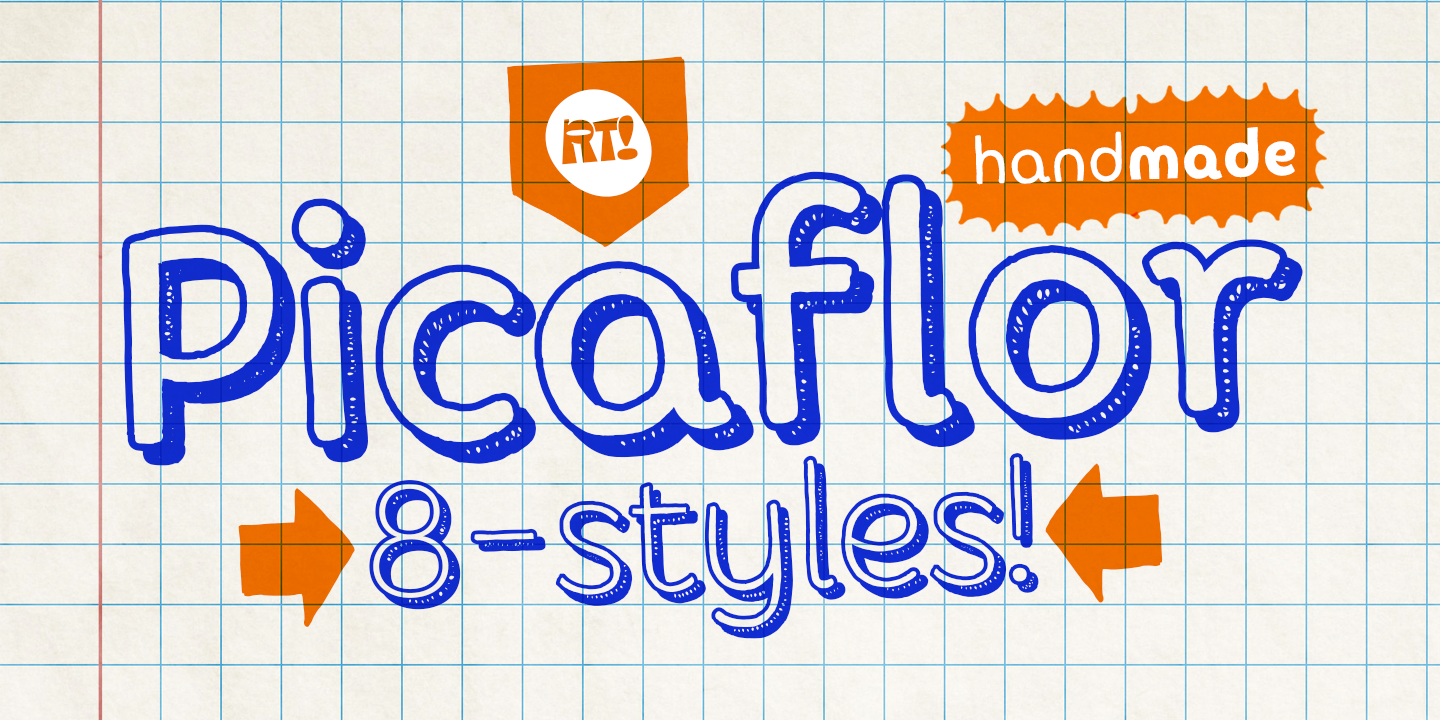
Picaflor Handmade Font is ideal for artisanal craft packaging, handmade jewelry labels, delicate botanical illustrations, hummingbird conservation campaigns, nature-inspired wedding invitations, organic garden centers, whimsical children's books, gentle flower shop branding, sustainable craft businesses, and authentic handmade product marketing. This charming typeface excels in applications where delicate craftsmanship and natural beauty need to be communicated with handmade authenticity and gentle elegance that embodies the essence of hummingbird grace and the meticulous attention to detail found in artisanal handcrafted creations and nature-inspired designs.
What makes Picaflor Handmade Font exciting is its remarkable ability to capture the delicate grace and natural beauty of hummingbirds through its carefully hand-drawn letterforms that seem to flutter with the same gentle energy and precise movement that characterizes these magnificent tiny birds in their natural habitat. The font embodies the spirit of artisanal craftsmanship with its handmade construction and nature-inspired proportions that suggest the patient skill and loving attention to detail that defines authentic handcrafted work. Its delicately crafted character details and gentle personality create an atmosphere of natural artistry that resonates with artisans, nature lovers, and craft enthusiasts who appreciate the irreplaceable beauty of handmade creations and the special connection between human creativity and natural inspiration.
The Picaflor Handmade Font family typically includes Regular and Bold weights, each maintaining the signature handcrafted characteristics and delicate natural appeal. Some versions offer enhanced decorative variants with botanical flourishes, alternative character sets with nature symbols and craft elements, and specialized treatments that amplify the handmade aesthetic. The family may also include outline styles perfect for craft projects and condensed variants that preserve the delicate character while providing layout flexibility for artisanal packaging and handmade product applications requiring authentic craft credibility.
Whether you're creating artisanal brand identities, handcrafted product packaging, or nature-inspired craft communications, Picaflor Handmade Font Free Download delivers the perfect handmade authenticity your craft-focused projects deserve. Its delicate character and artisanal styling make it an invaluable choice for craft businesses, handmade product creators, and nature-inspired brands working in artisanal crafts, handmade goods, and nature-connected creative sectors where authentic handcrafted beauty and gentle natural elegance are essential for connecting with customers who value the personal touch and natural inspiration found in genuine handmade creations.